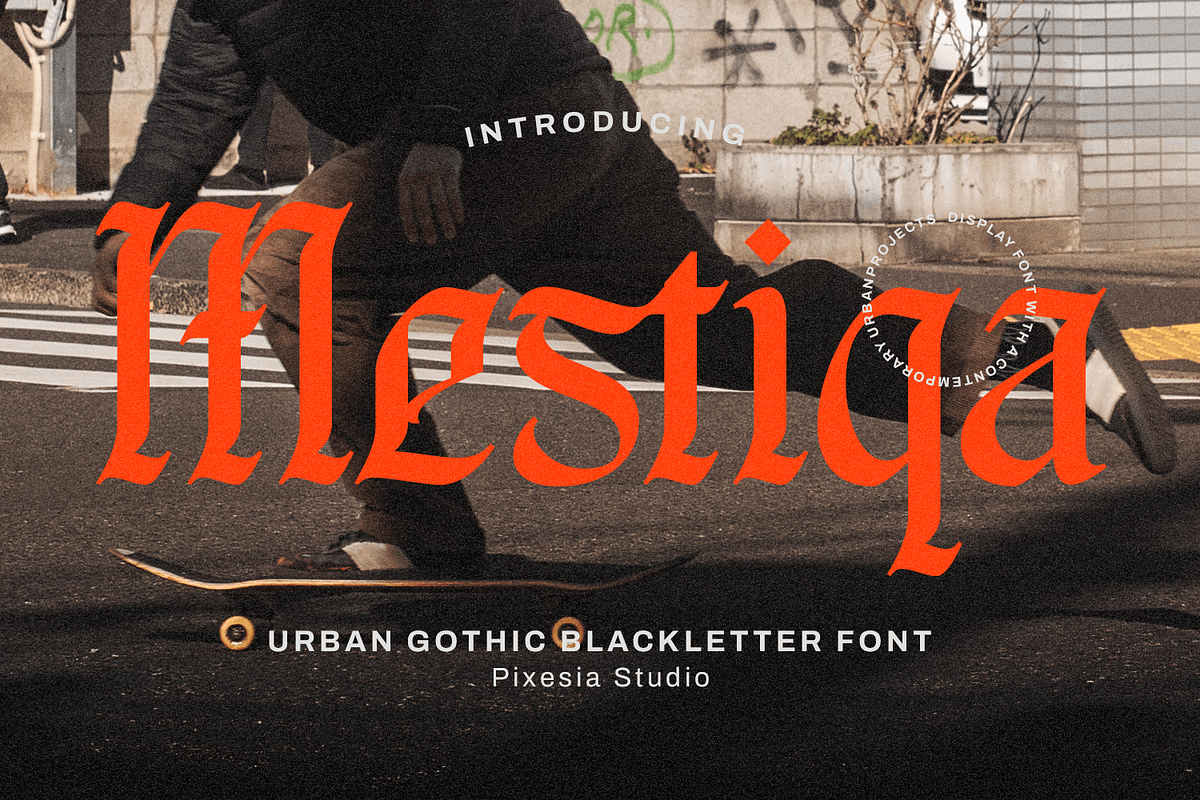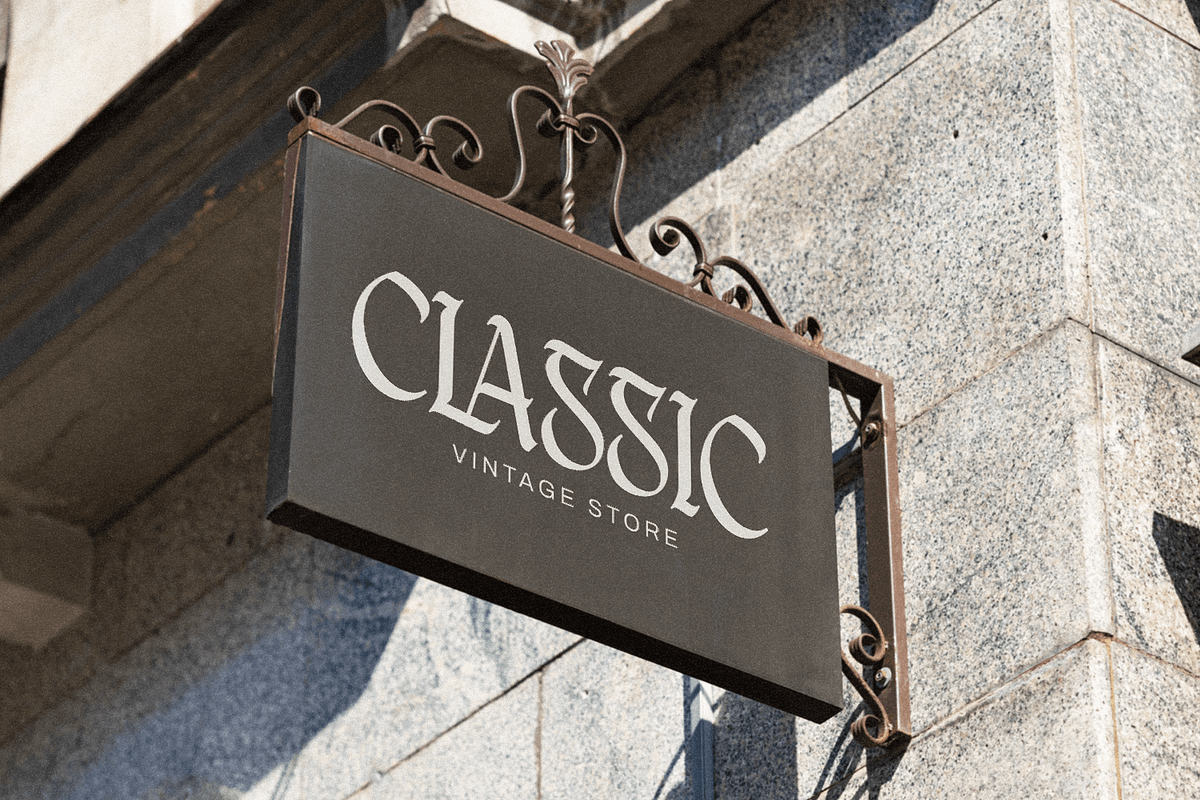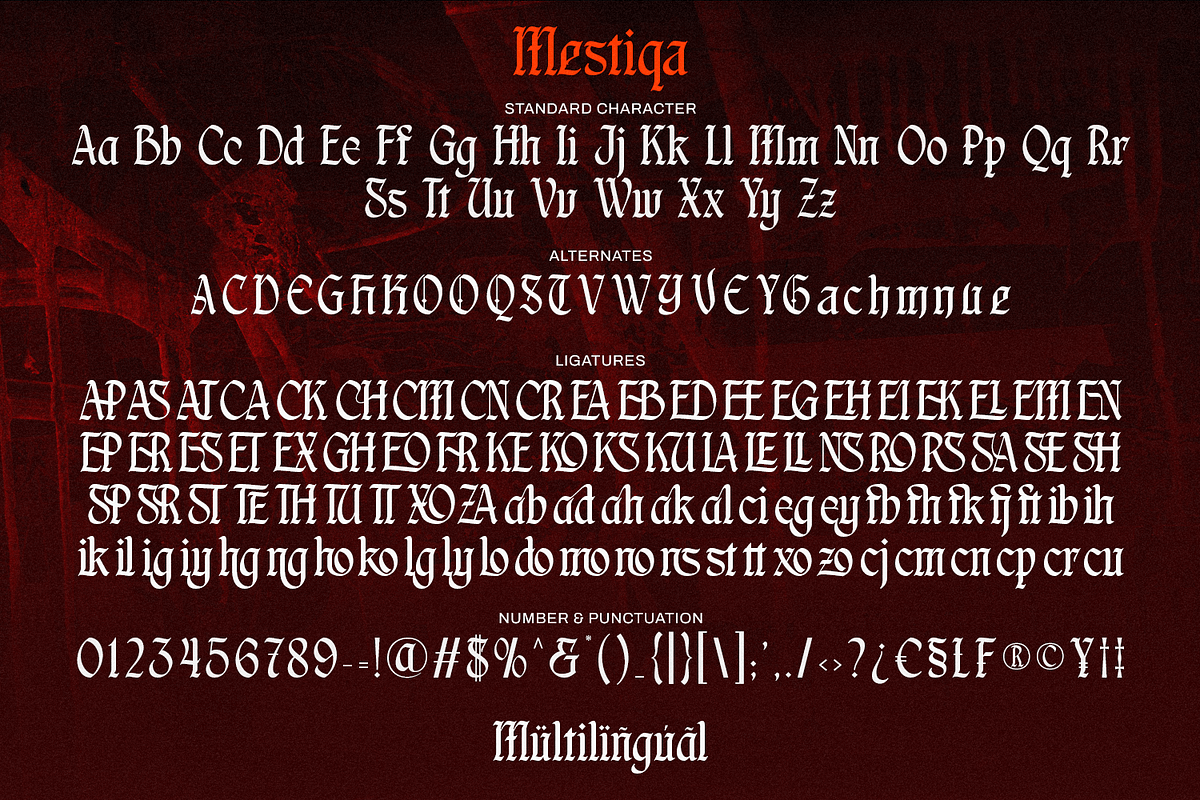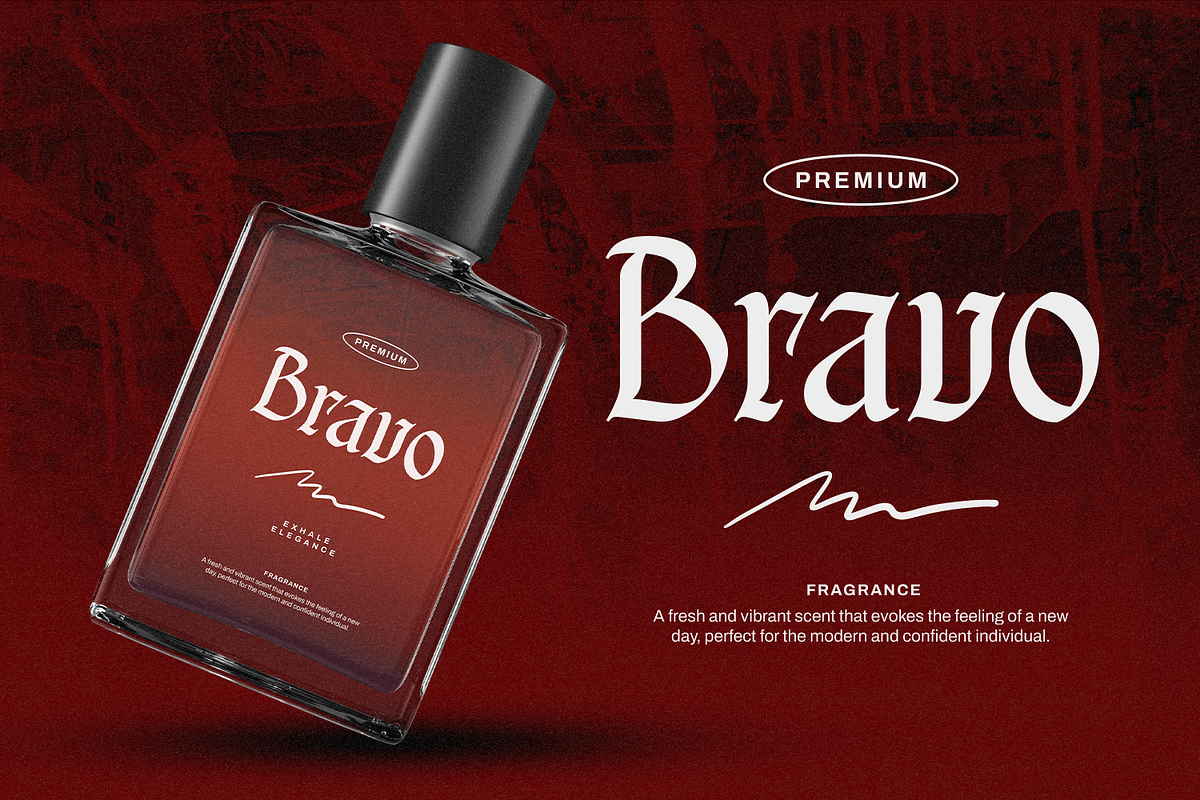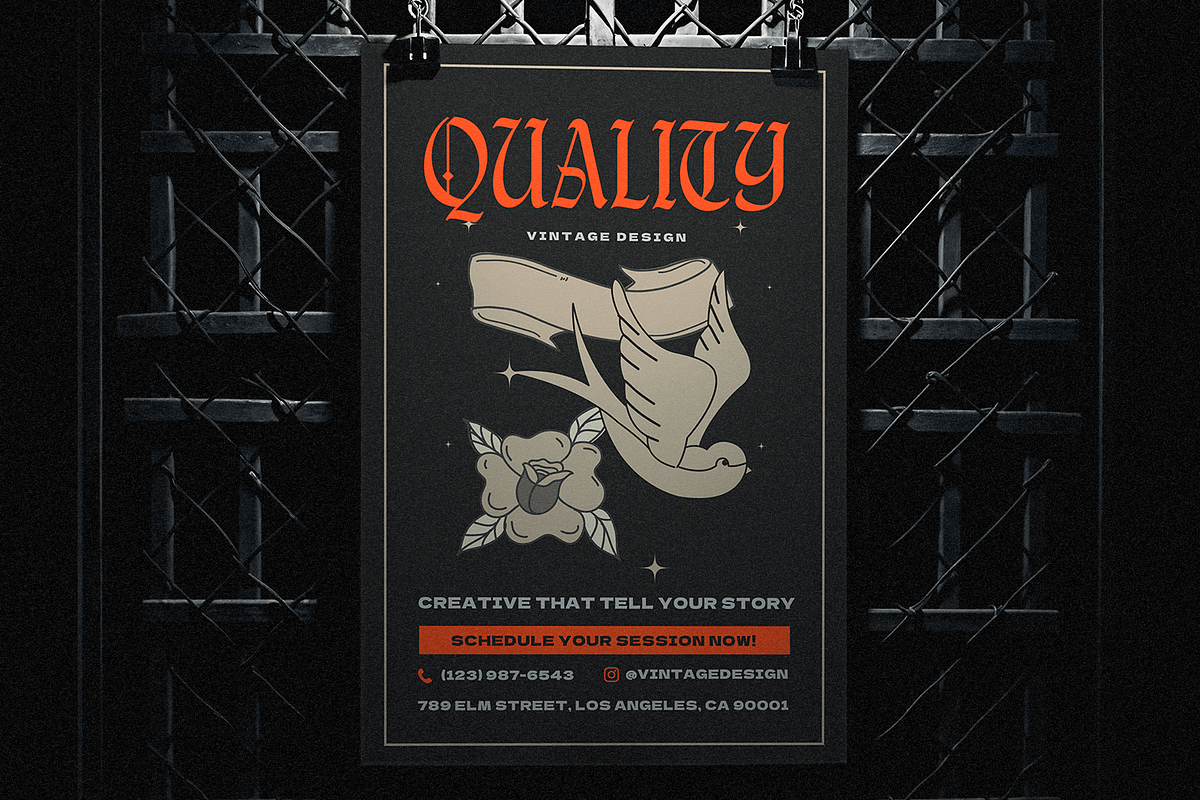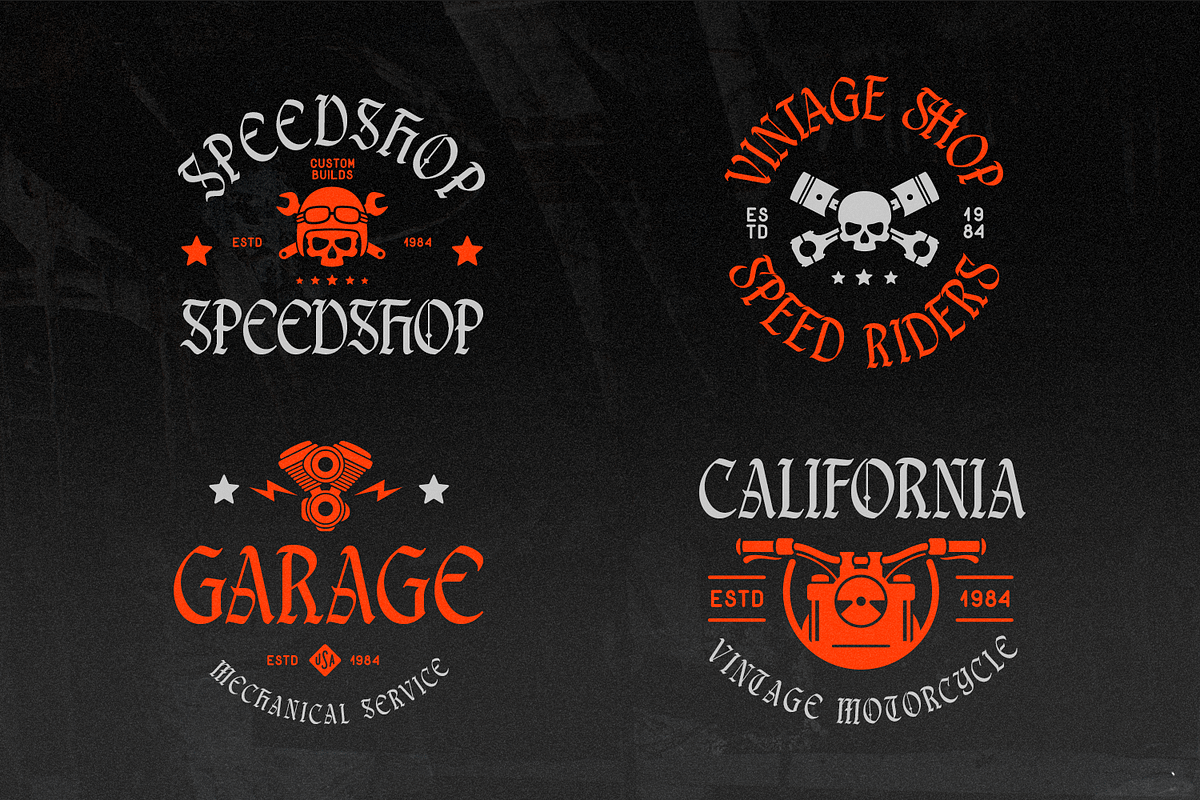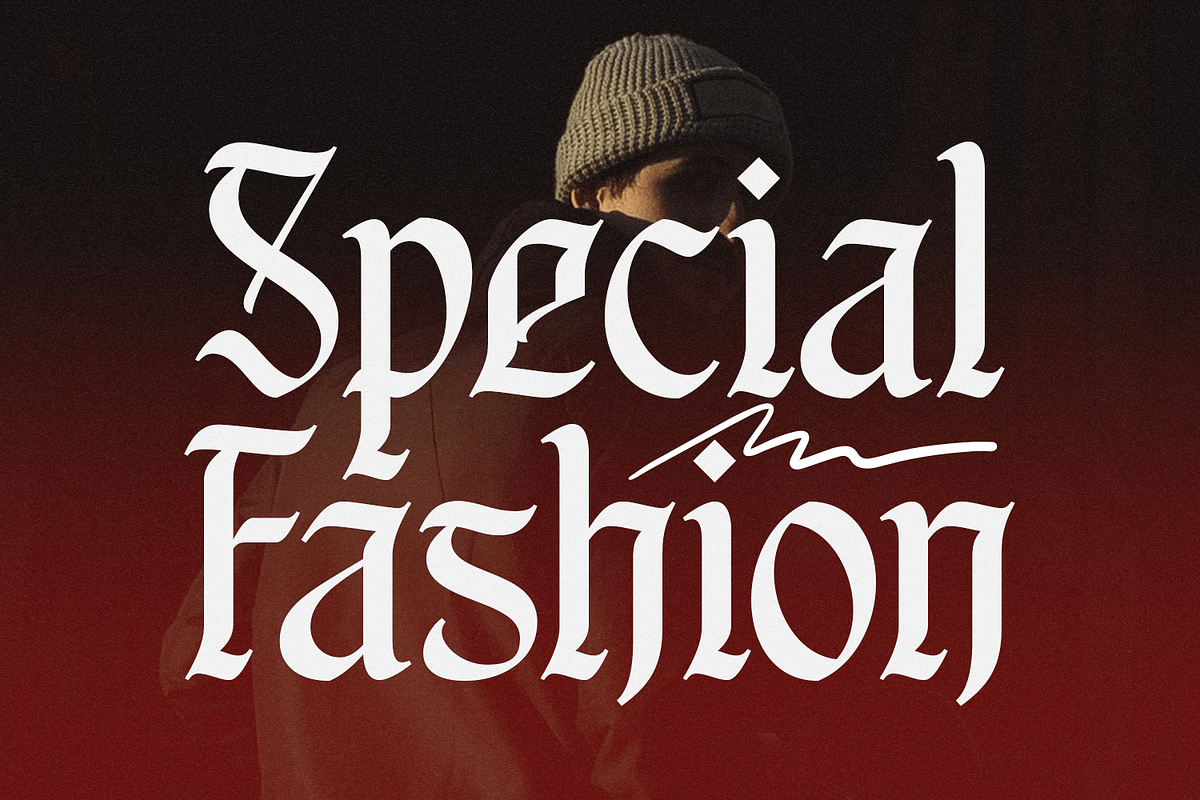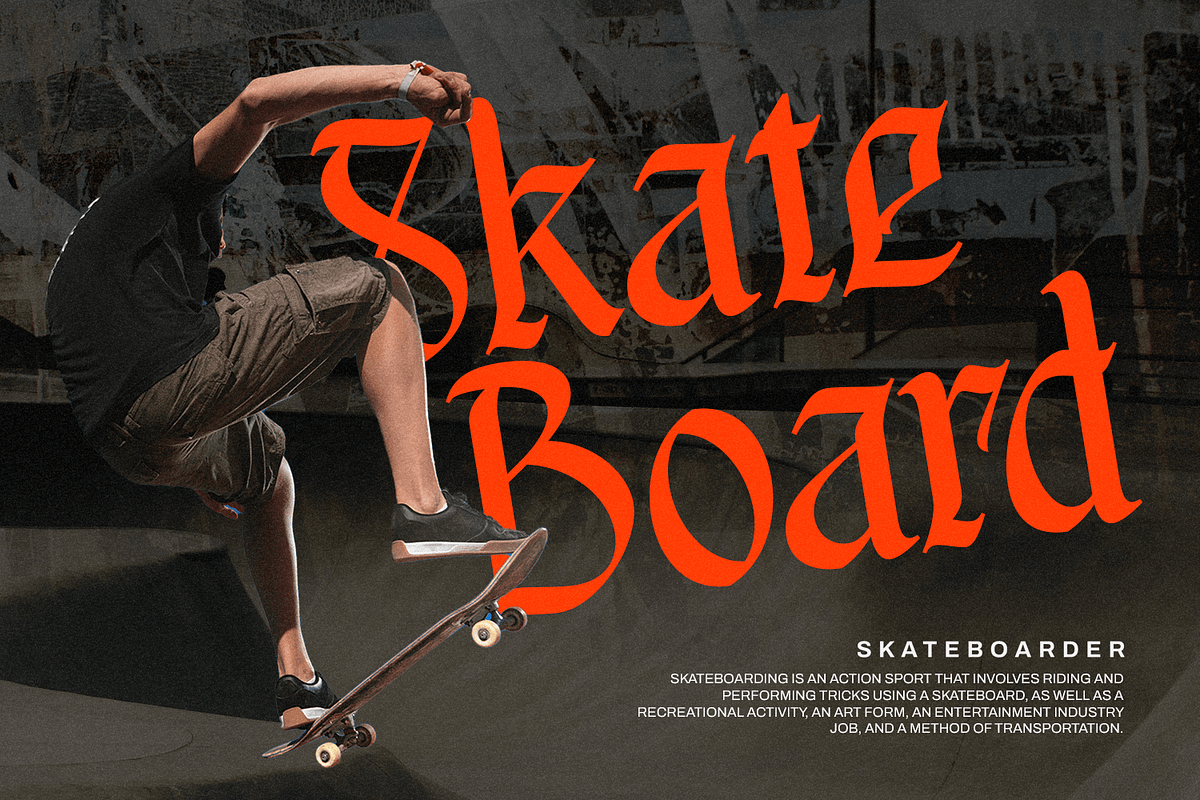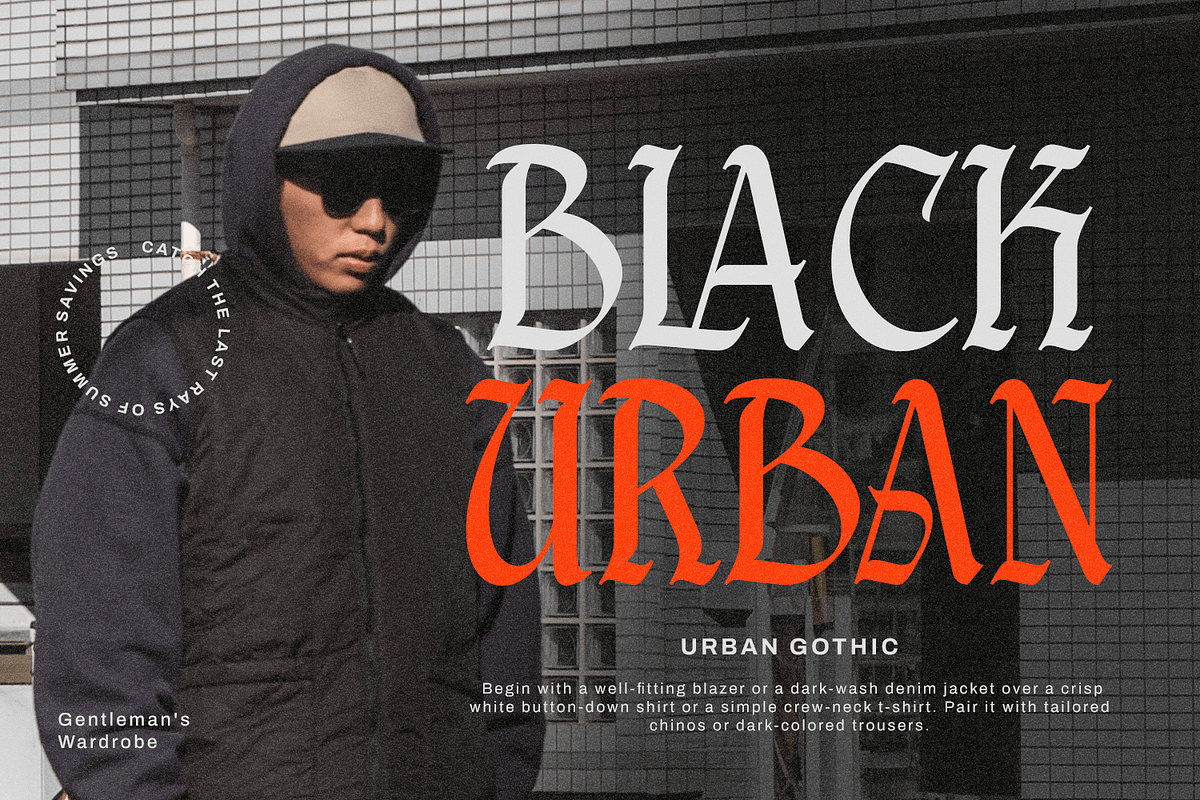
Mestiqa – Blackletter Font
Introducing Mestiqa – Urban Gothic Blackletter Font
Mestiqa is a bold and urban-inspired blackletter font that blends gothic tradition with modern street-style energy. Its sharp edges and striking letterforms give it a powerful presence, making every word look fierce, confident, and full of attitude.
Perfect for streetwear branding, skate culture designs, posters, logos, headlines and editorial projects, Mestiqa brings a fresh twist to gothic typography — timeless yet unapologetically modern.